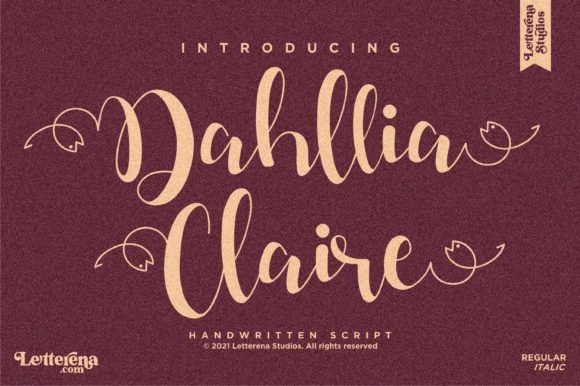
Unlocking the Perfect Script: The Power of Dahllia Claire Font
You know that moment when you’re brainstorming ideas for a new project, and suddenly, the perfect font pops into your head? It’s like a spark of creativity that sets everything off. For designers and crafty DIY enthusiasts, finding the right font can make all the difference between a project that’s just good and one that’s truly exceptional. That’s exactly what the Dahllia Claire Font delivers.
This bold and fun script font is designed to bring a touch of personality to your logos, branding, social media, and crafty projects. With its clean and quirky style, Dahllia Claire Font is the perfect fit for anyone looking to add a little extra flair to their designs. As a PUA-encoded font, you’ll have access to all the glyphs and swashes you need to create truly unique and eye-catching designs.
Dahllia Claire Font Key Features
- Font Family: Dahllia Claire Font
- Unique Characteristics: Elegant, cursive script with a vintage flair, ideal for creative projects, invitations, and wedding designs
Dahllia Claire Font Review
I’ve had the chance to work with Dahllia Claire Font on a few projects, and I must say it’s a versatile and elegant typeface. ✨ It has a soft, rounded feel that makes it perfect for headings and titles, while its subtle curves give it a friendly, approachable vibe. ✨ The font is also highly legible, even at smaller sizes, making it a great choice for body text.
One of the things I appreciate most about Dahllia Claire Font is its wide range of weights and styles. ✨ This allows for a lot of creative freedom and flexibility in terms of design and layout. You can use it for everything from formal, professional designs to more casual, creative projects.
However, I do think that Dahllia Claire Font could benefit from a more extensive character set. ⚠️ As it stands, it’s not ideal for languages that use non-Latin scripts, and some special characters may not be supported. ⚠️ Additionally, the font can sometimes look a bit too “safe” or generic, lacking the unique personality that some designers might be looking for.
Tip: Use Dahllia Claire Font for titles and headings to add a touch of elegance to your designs.
Tip: Use Dahllia Claire Font for creating custom typography and adding a vintage touch to your designs.
Dahllia Claire Font is suitable for various design applications, including:
- Editorial and publishing
- Event and party invitations
Alternatives to Dahllia Claire Font for Designers
Great Vibes Font is a beautiful, elegant script font that works well for titles, headings, and quotes. It is ideal for creating a luxurious and sophisticated look. Great Vibes Font has a more classic feel compared to Dahllia Claire Font, which has a more modern and minimalist design.
Carolyna Pro Font is a modern, elegant script font that is perfect for titles, headings, and quotes. It has a similar feel to Dahllia Claire Font, but with a more refined and sophisticated look. Carolyna Pro Font is ideal for creating a high-end and luxurious brand identity.
Alex Brush Font is a elegant, handwritten script font that works well for titles, headings, and quotes. It has a more rustic and vintage feel compared to Dahllia Claire Font, which has a more modern and minimalist design. Alex Brush Font is ideal for creating a warm and inviting brand identity.
Ostrich Sans Font is a modern, sans-serif font that is perfect for body text and titles. It has a more clean and minimalist design compared to Dahllia Claire Font, which has a more elegant and script-like design. Ostrich Sans Font is ideal for creating a clean and modern brand identity.
Is Dahllia Claire available in different weights and styles?
No, Dahllia Claire is available in a single weight. However, the font’s elegant and cursive nature makes it suitable for use in a variety of design contexts, from invitations and wedding stationery to branding and packaging.